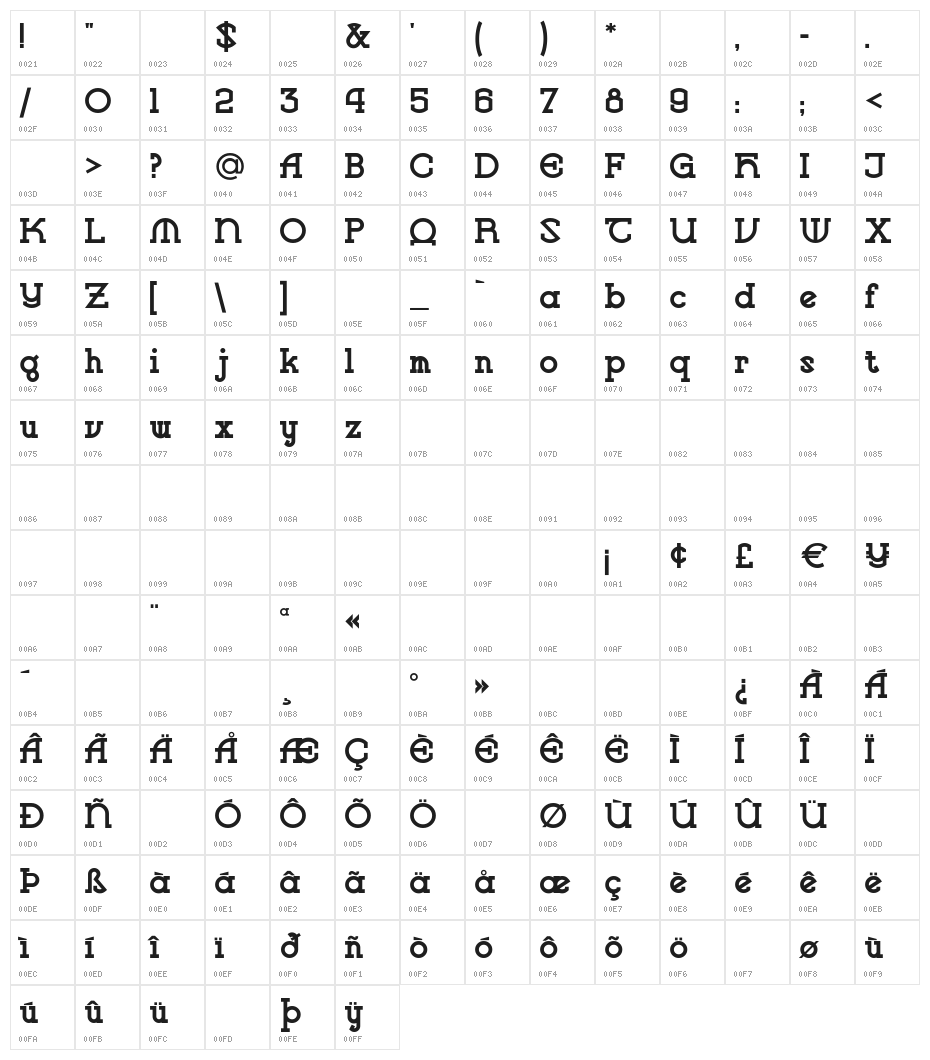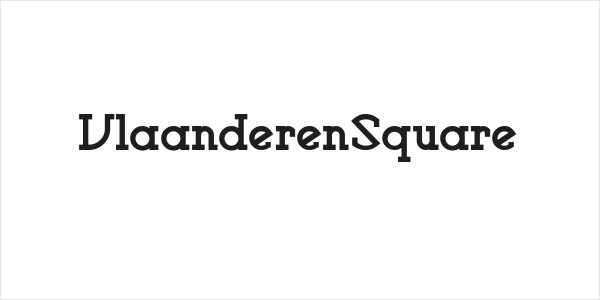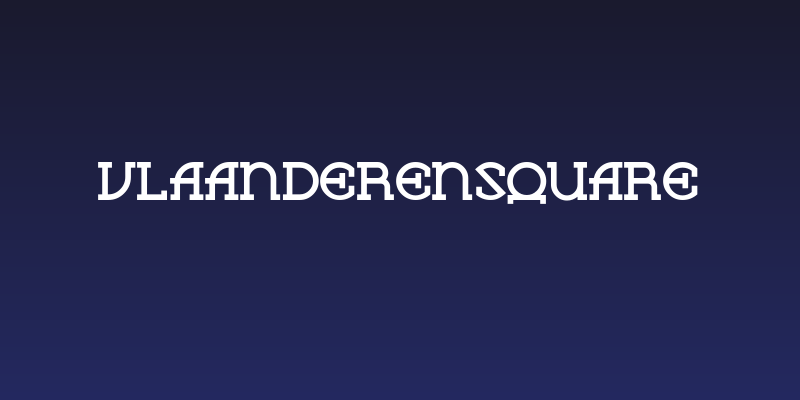
VlaanderenSquare Font
VlaanderenSquare Description
This font features a bold and distinctive slab serif style with geometric influences. The uppercase letters are characterized by strong horizontal serifs and a uniform stroke width, giving them a robust and structured appearance. The lowercase letters maintain the same boldness, with rounded elements that add a touch of softness to the overall design. The numerals are equally bold, with a consistent stroke weight that ensures readability. Special characters are designed to match the font's overall aesthetic, providing a cohesive look across all glyphs. This font is ideal for making a strong visual impact while maintaining clarity and legibility.
| Proposed Projects | Ideal for branding, headlines, posters, and any design requiring a strong visual impact. |